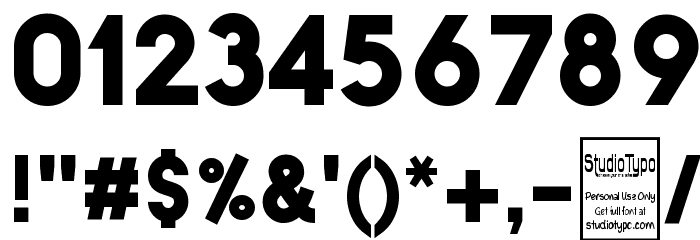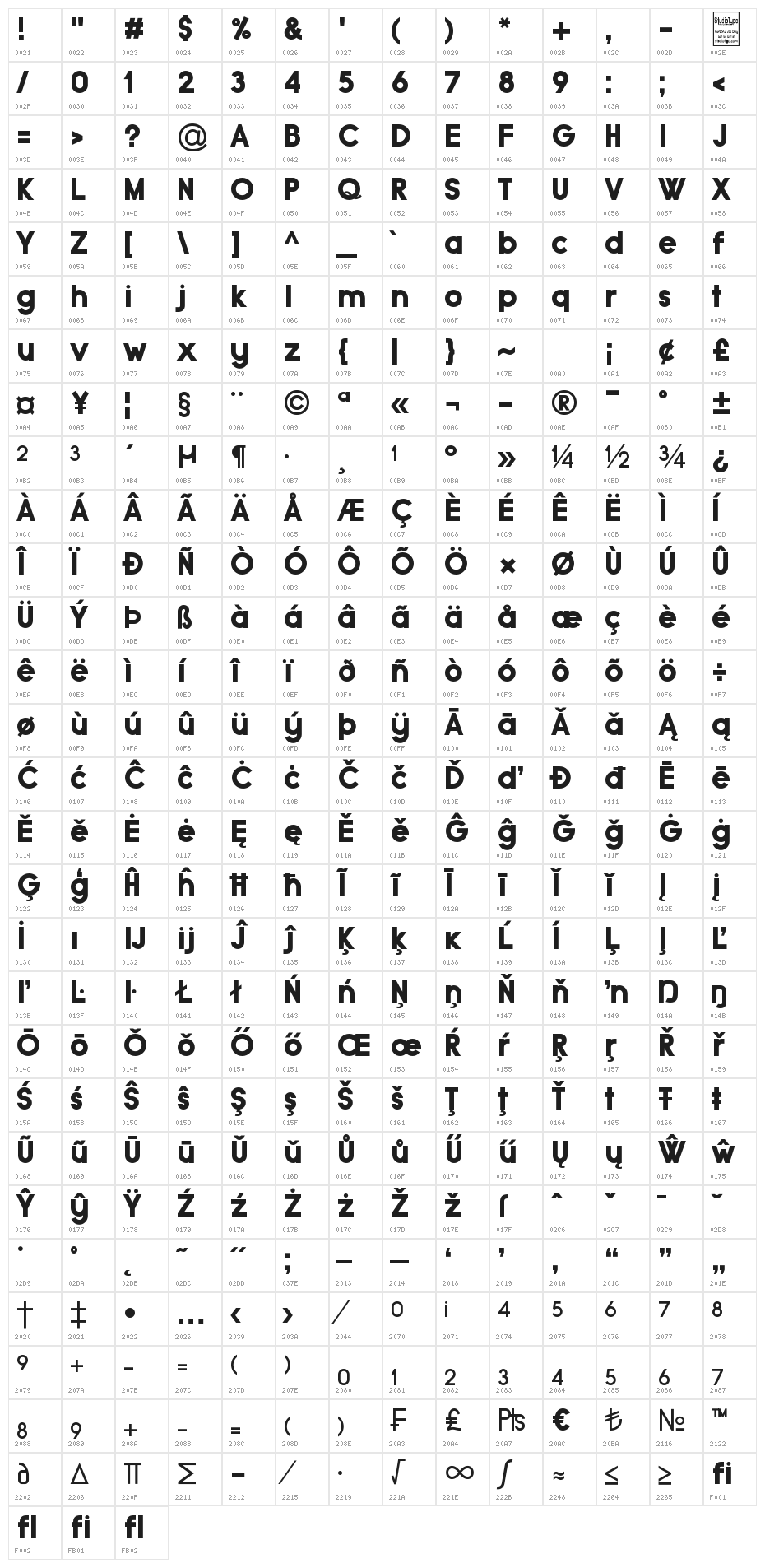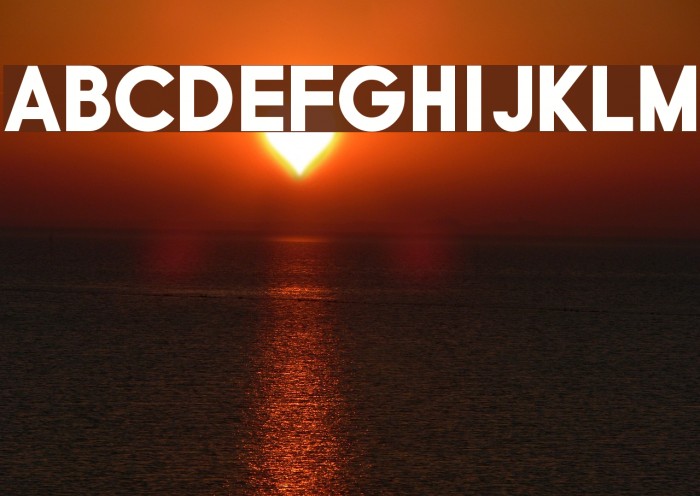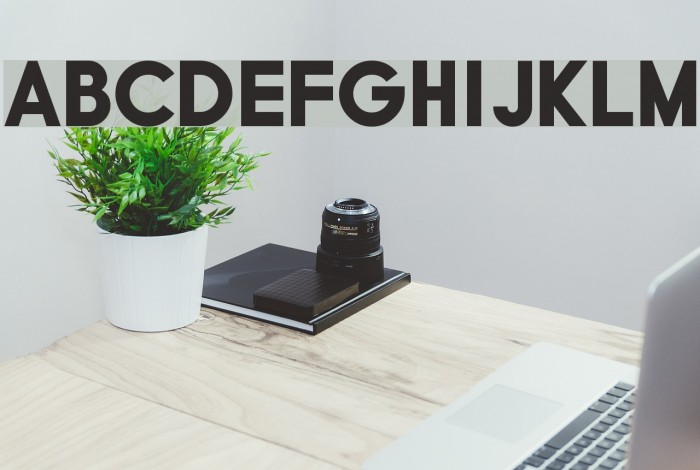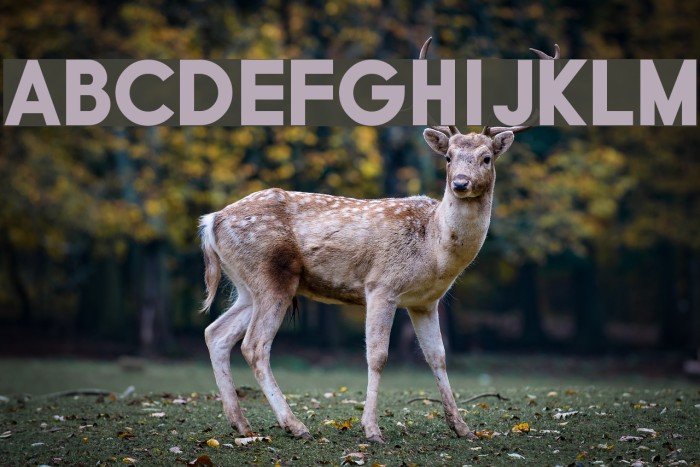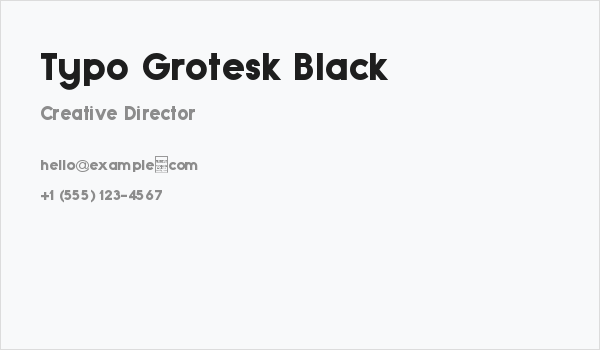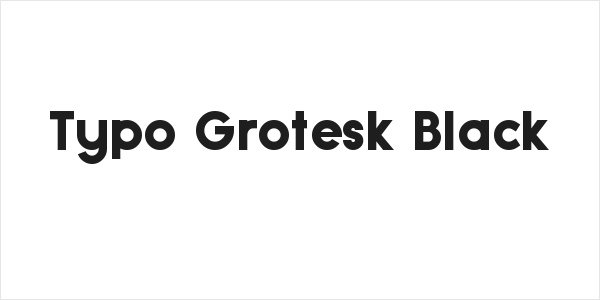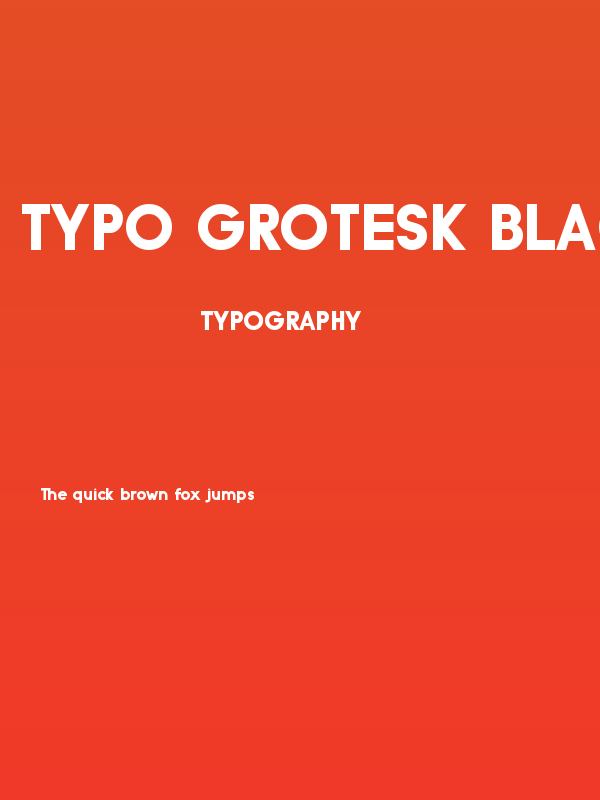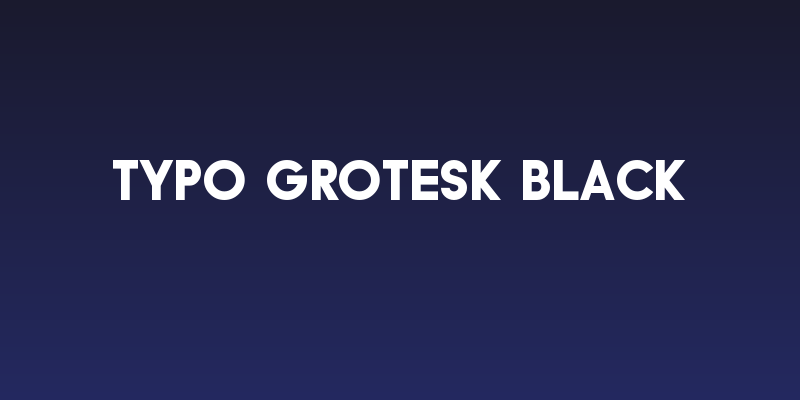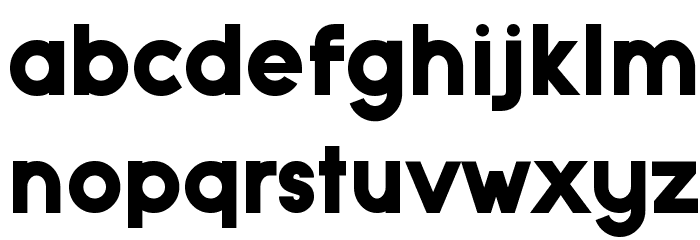
Typo Grotesk Black Font
Typo Grotesk Black Description
This typeface features bold, geometric letterforms with a strong presence. The characters are uniform in width, creating a balanced and cohesive look. The uppercase letters are particularly striking, with clean lines and a modern aesthetic. The lowercase letters maintain the same boldness, offering a consistent visual weight across all characters. The numerals are clear and easily distinguishable, making them suitable for a variety of applications. Special characters are included, providing versatility for different design needs. Overall, this font exudes a contemporary and assertive style, ideal for making a statement.